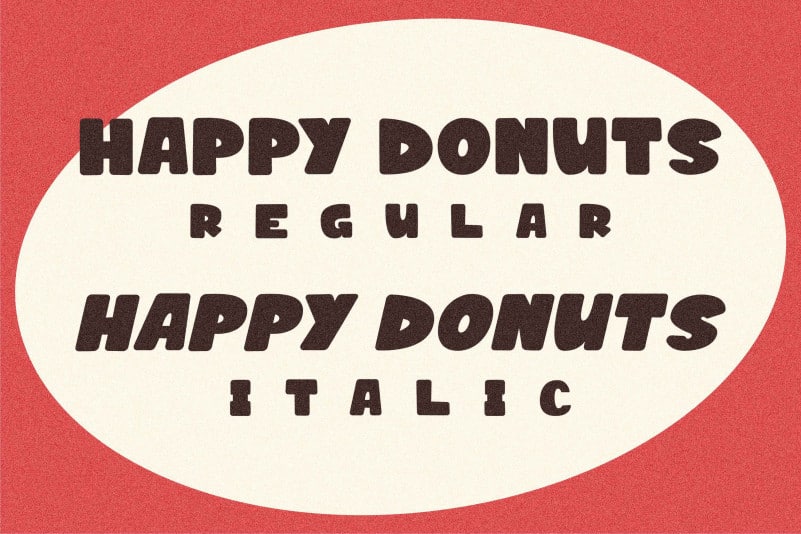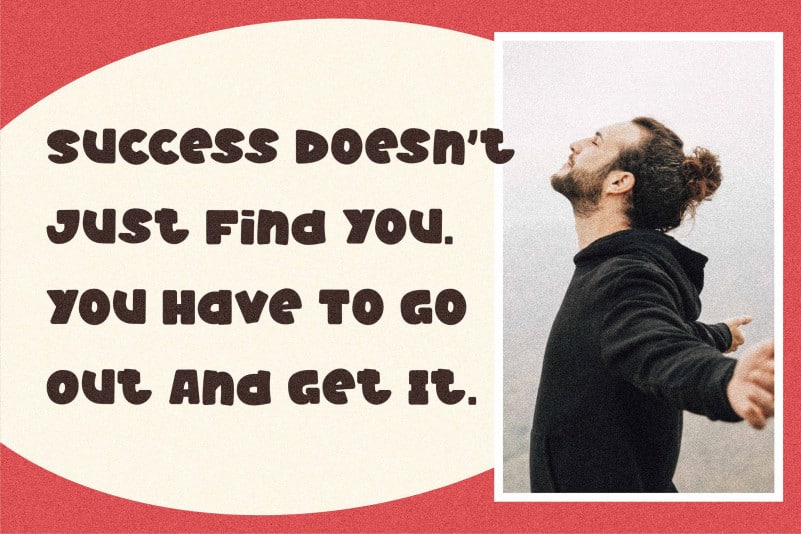
Happy Donuts Display Font
Happy Donuts Display Font is a bold and cute display font with chunky letters and will be a whole lot of fun to use in your projects such as logos, branding projects, homeware designs, product packaging, mugs, quotes, posters, shopping bags, t-shirts, book covers, name card, invitation cards, greeting cards, label, photography, watermark, special events, and all your other lovely projects that need a beautiful and quirky typeface.